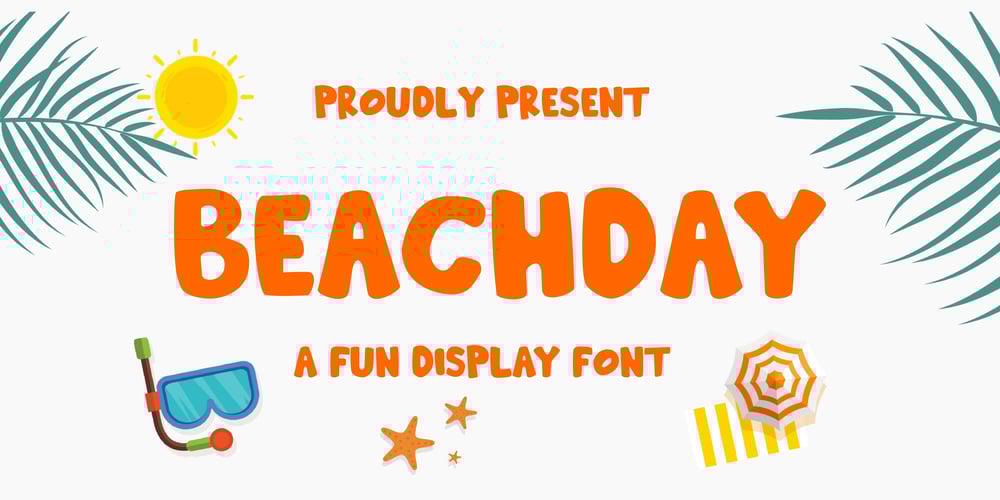
Beachday
Beachday font
Beachday Font Family was designed by Setiadi Rahagita and published by RahagitaType. Beachday contains 1 styles and family package options. Inspired by vacations, Beachday is a super fun and playful display font with a whimsical feel!